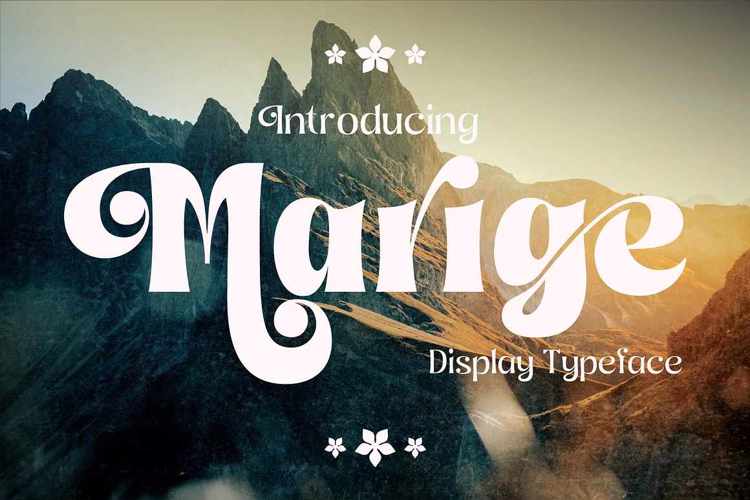
Marige Thin Font
Thin Style
Marige display typeface is a family of 9 weights that make it easy to create visual typography designs ranging from thin to black.